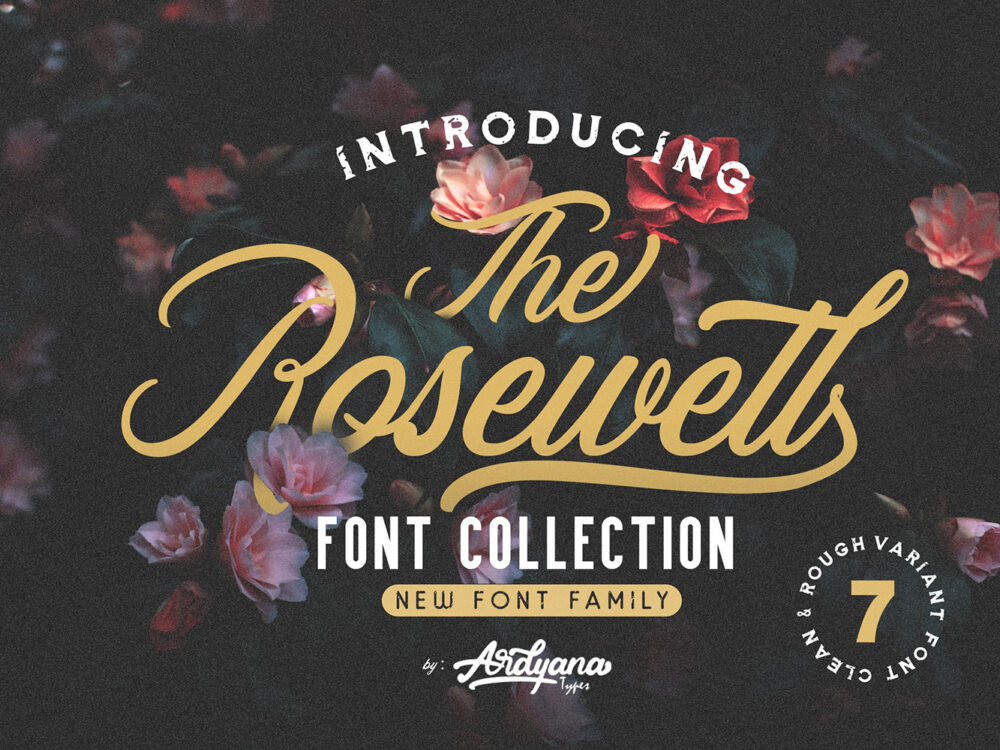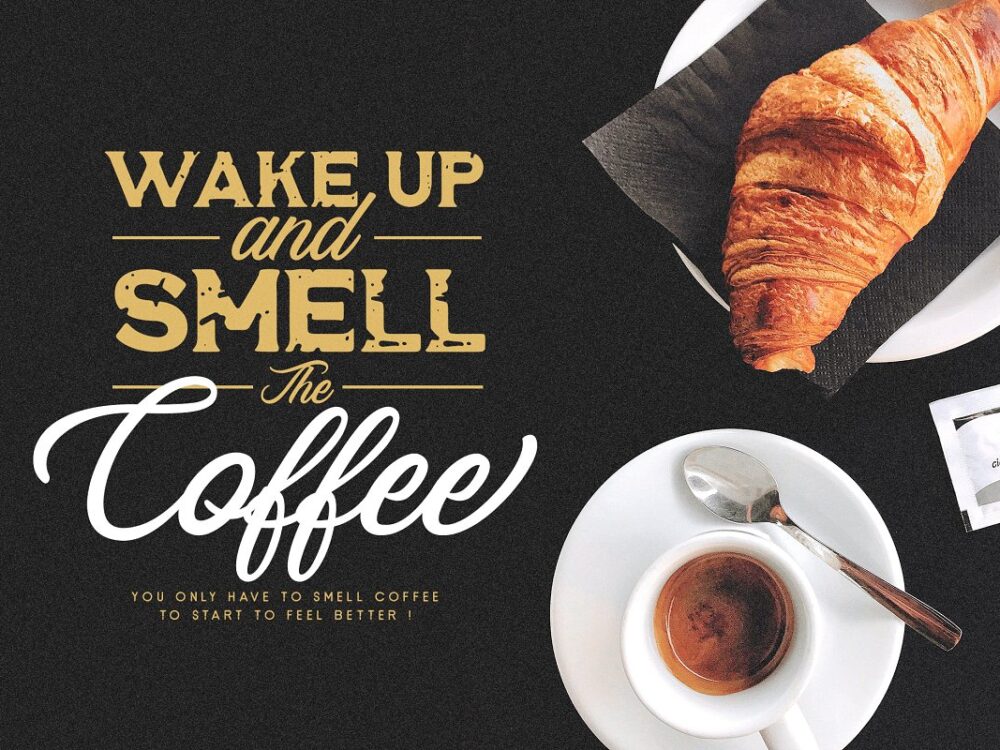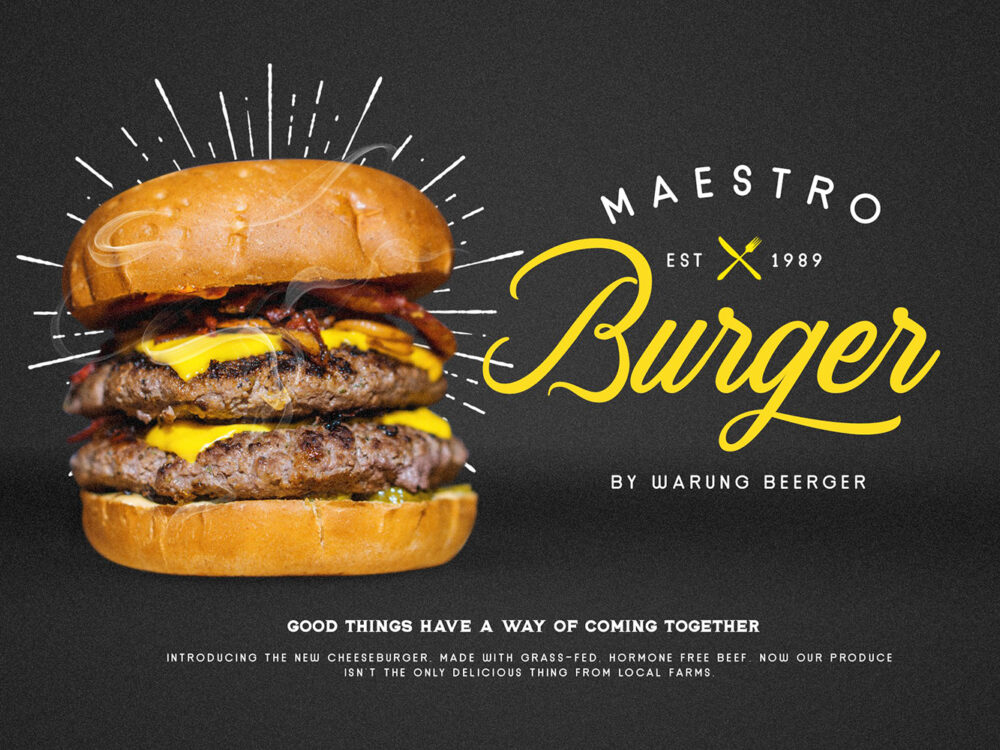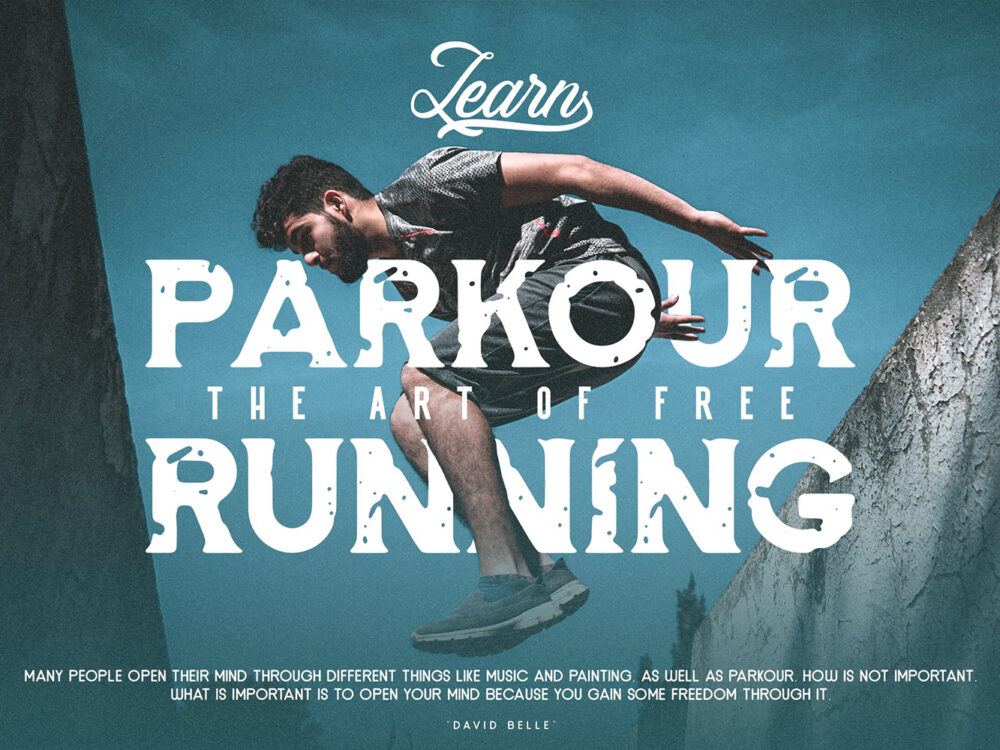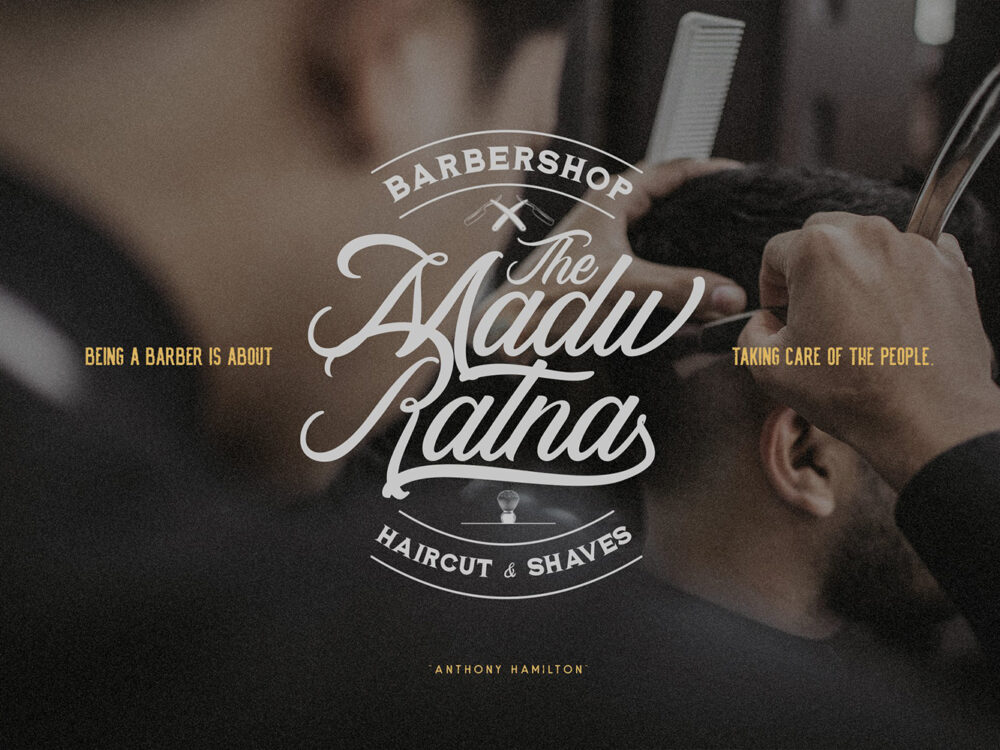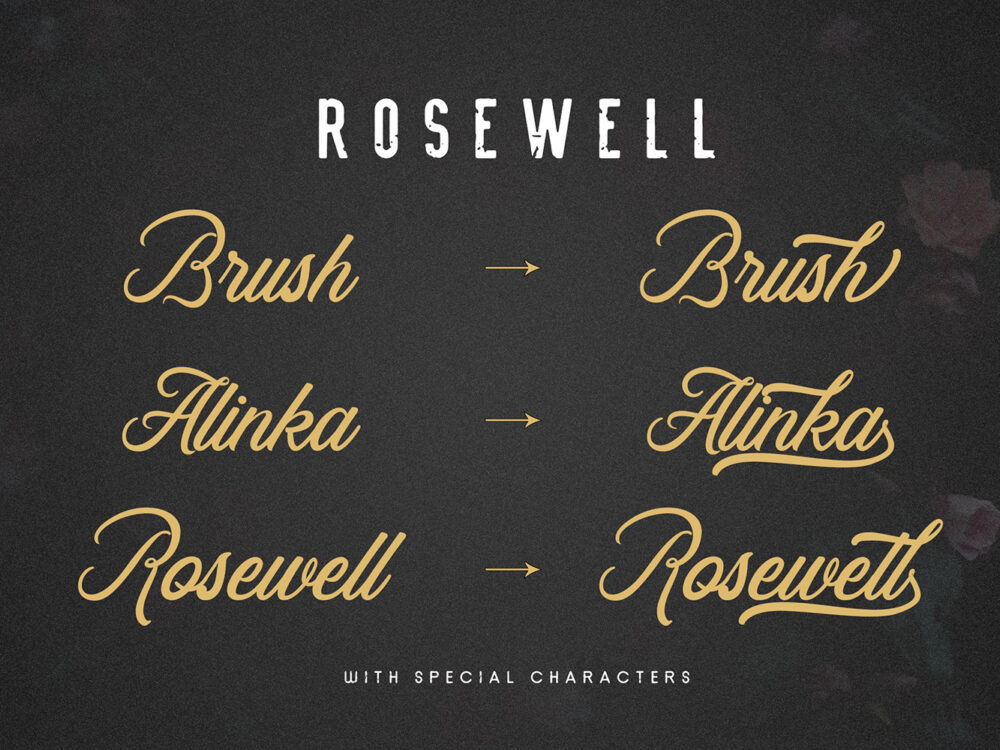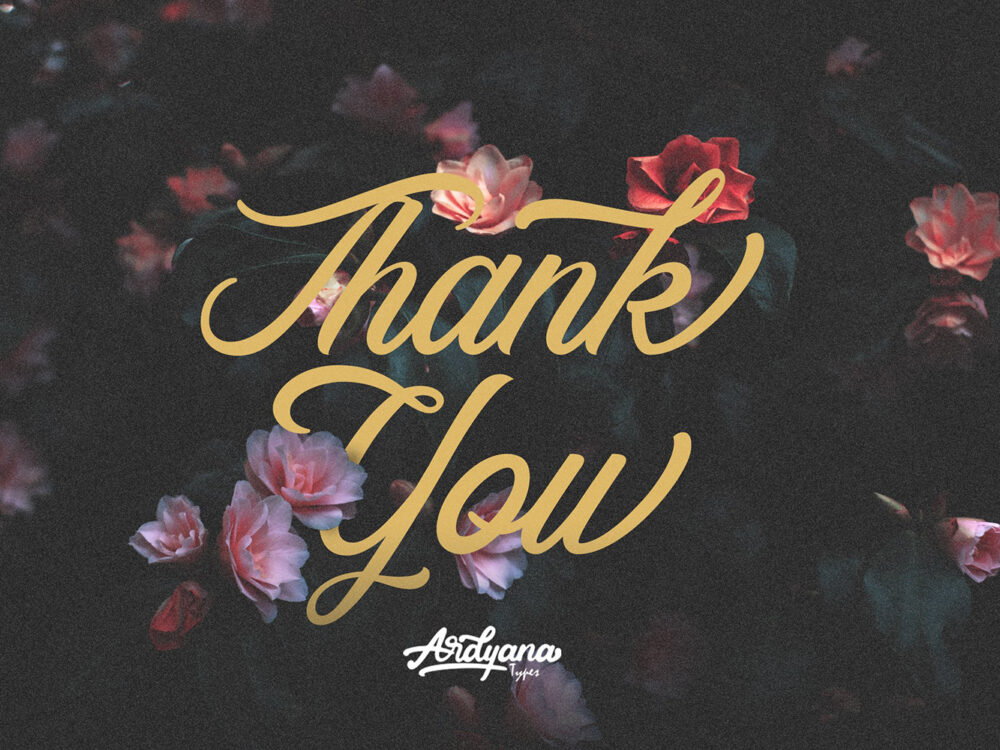
Rosewell Script Free Font
Rosewell Script Free Font is a beautiful handwritten font that was inspired by the various fonts used in the lounge cafe. This font is very suitable for a variety of projects that require a nice handwritten font. These include vintage posters, cards, invitations, clothing prints, and more. So, if you wish to access more features and use it for commercial work, go get the full version as well.